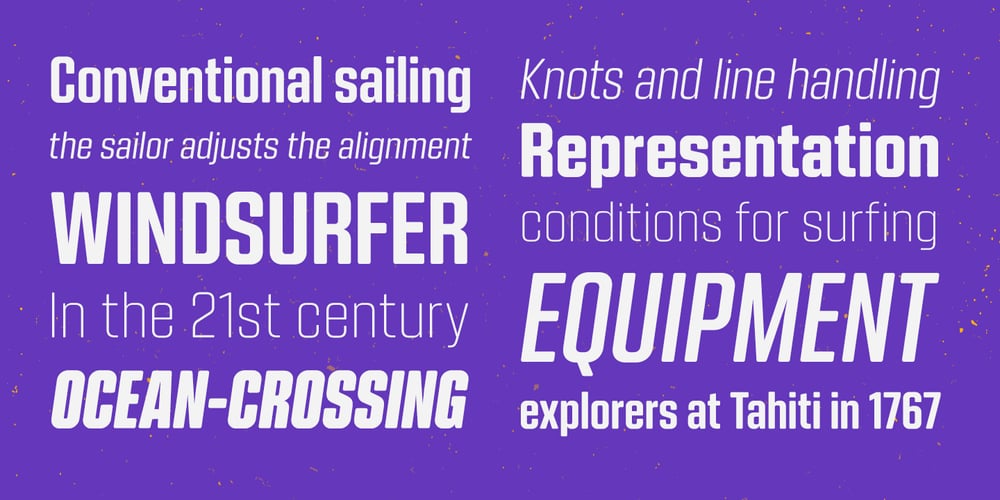
Kuunari Rounded
Kuunari Rounded font
Kuunari Rounded Font Family was designed by Mika Melvas and published by Melvastype. Kuunari Rounded contains 42 styles and family package options. Kuunari Rounded is the rounded version of Kuunari. it is a structured square sans type family of 42 fonts. It has three widths and seven weights in both upright and italic versions. The base form is a round-cornered rectangle, and this form constructs the glyphs throughout the fonts. Kuunari Rounded is a straightforward sans serif. It doesn’t make any fuss about itself; it just does the job proudly and confidently.